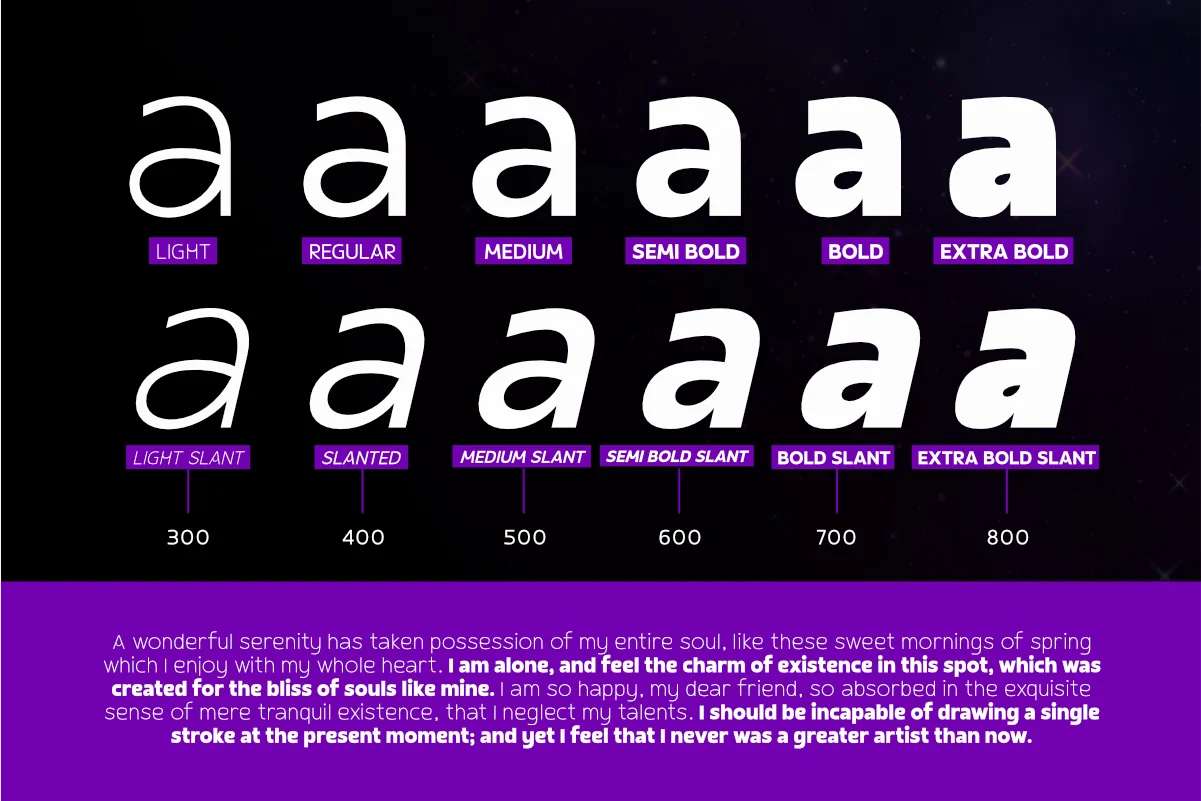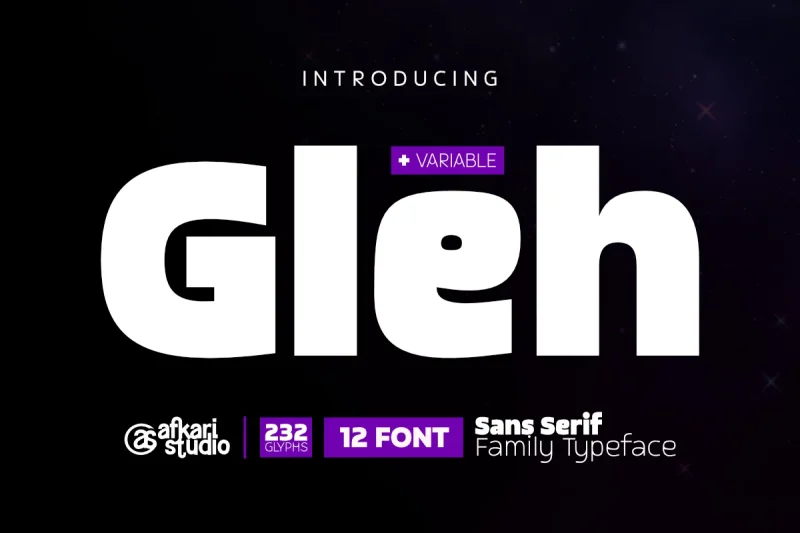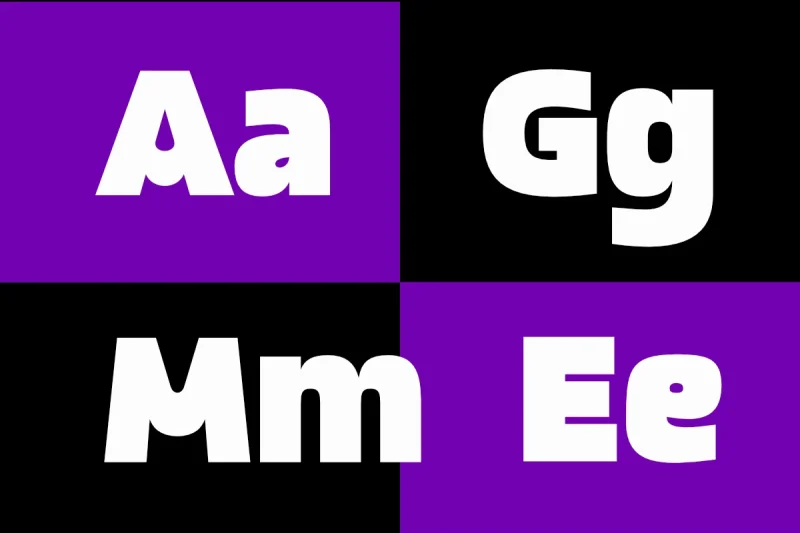
Gleh – Modern Sans Serif Family Typeface with Variable Font
Gleh is a modern sans serif font family crafted to deliver clean, professional, and highly versatile typography for both creative and corporate design projects. Designed with balanced proportions and contemporary letterforms, Gleh ensures excellent readability while maintaining a sleek and modern aesthetic across all visual applications.
This sans serif typeface family includes 12 fonts, ranging from Light to Extra Bold weights, along with matching slanted styles that allow designers to build dynamic, expressive, and flexible layouts. Gleh also comes with a variable font version, enabling smooth weight and slant adjustments for faster workflow and maximum adaptability in modern digital design environments.
Perfect for branding, logo design, editorial layouts, websites, UI/UX, social media graphics, advertising, packaging, and marketing materials, Gleh performs seamlessly in both digital and print design. It is an ideal choice for designers and agencies seeking a modern, reliable, and professional type system that delivers consistent results across diverse design scenarios.
Highlighted Features:
• 12 font styles, Weights from Light to Black
• Uppercase, lowercase, Numbers & punctuation
• Clean and contemporary letterforms
• Excellent readability across sizes
• Mültîlíñgúãl Sùppört for; ä ö ü Ä Ö Ü ß ¿ ¡
Build consistent, modern typography with Gleh – Sans Serif Family Typeface, a flexible font family created for contemporary design systems and professional visual communication.